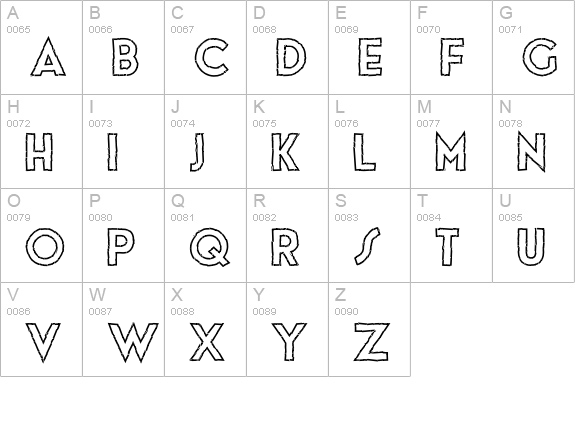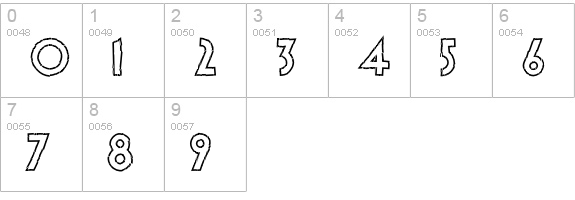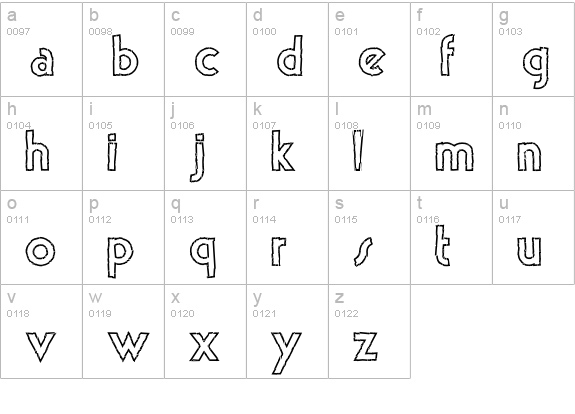
theLUXX Outiline Crashed Font Details
The LUXX Outiline Crashed font is a visually striking and edgy typeface that exudes a sense of modernity and creativity. Its unique design features a combination of sharp angles and broken lines, giving it a distinct and rebellious feel. This font is perfect for projects that require a bold and unconventional look, such as posters, album covers, and branding materials. What makes the LUXX Outiline Crashed font even more appealing is that it is available for free download at FontsMarket.com. This means that you can easily access this eye-catching typeface without any cost, making it a valuable addition to your design toolkit. Whether you're a professional designer or a hobbyist looking to enhance your projects, the LUXX Outiline Crashed font offers a versatile and dynamic option that is sure to make a statement.